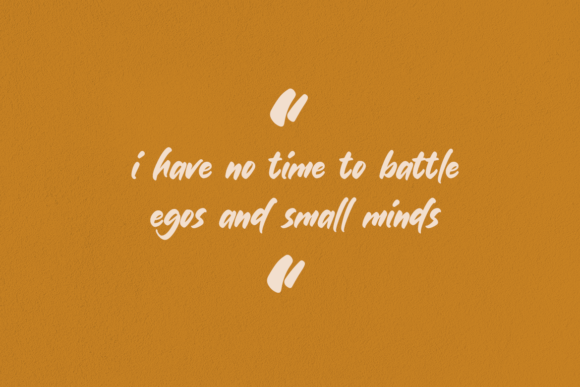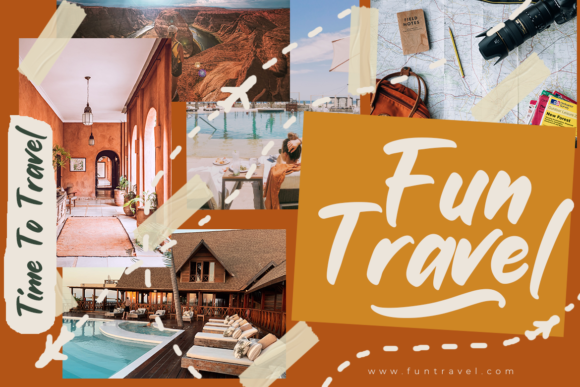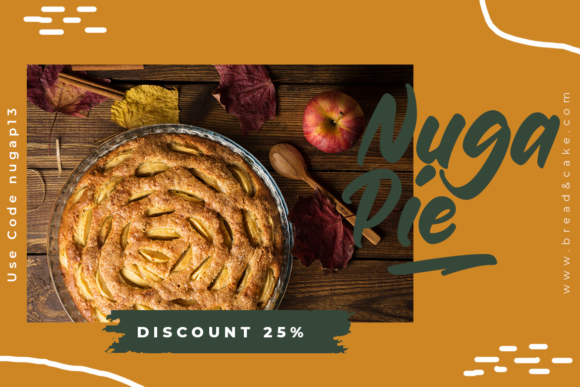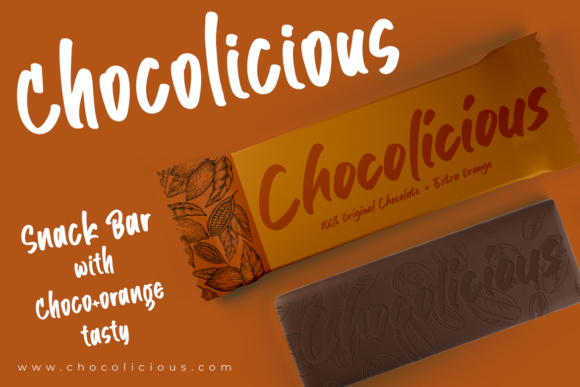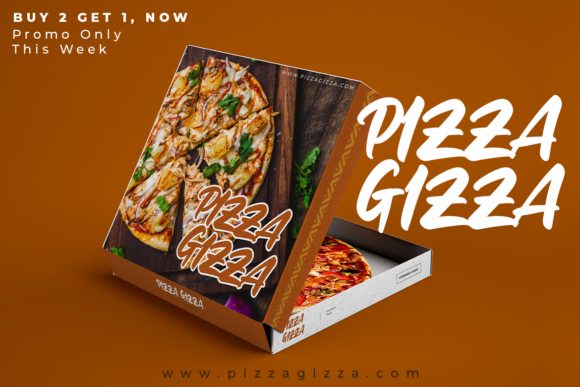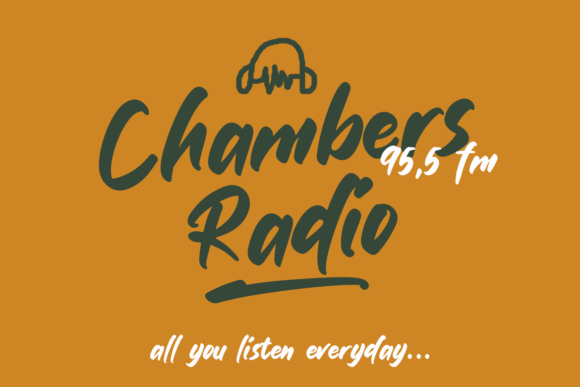
Unlocking the Magic of Gold Girls Font
Have you ever sat at your desk, staring blankly at a blank page, waiting for that spark of creativity to strike? We’ve all been there. And then, it happens – a font catches your eye, and suddenly, the ideas start flowing. For designers and writers alike, the perfect font can be the difference between a mediocre project and a masterpiece. Enter the Gold Girls Font, a stunning handwritten font that’s about to change the game.
With its modern and elegant look, Gold Girls Font is the perfect addition to any design project. Whether you’re working on a wedding invitation, a branding campaign, or a simple blog post, this font will bring your ideas to life. Its unique, flowing script makes it a valuable tool for designers looking to add a touch of sophistication and personality to their work.
Gold Girls Font Key Features
- Font Family: Gold Girls Font is a unique, hand-drawn font designed to evoke the elegance and sophistication of the 1980s.
- Unique Characteristics: The font features intricate, hand-drawn details and ornate flourishes, giving it a distinctive and eye-catching appearance.
- Script and Stylistic Sets: The font includes a range of script and stylistic sets, allowing designers to create a variety of effects and moods.
Designer Review: Gold Girls Font
When I first saw the Gold Girls Font, I was immediately drawn to its elegant, vintage vibe ✨. The font’s distressed texture and ornate details give it a unique, high-end feel that’s perfect for luxury brands, feminine designs, and nostalgic projects.
One of the things I love about Gold Girls Font is its versatility ✨. It comes in a range of weights, from light to bold, which makes it easy to use in various design contexts. I’ve used it for titles, headings, and even body text, and it always looks great ✨.
While Gold Girls Font is a great choice for many projects, there are a few limitations to keep in mind ⚠️:
- It may not be the best choice for digital displays or screens, as the distressed texture can sometimes appear fuzzy or distorted.
- Some characters, like the letter ‘g’, can be quite ornate and may not be easily readable in smaller font sizes.
- It’s not a highly legible font, so it’s best used for titles and headings rather than body text.
Overall, I’m a big fan of Gold Girls Font ✨. While it may have some limitations, its unique style and versatility make it a great addition to any designer’s toolkit. I’ve used it on several projects, and it always adds a touch of elegance and sophistication. Just be sure to use it judiciously, and you’ll be golden! 😊
Getting the Most Out of the Gold Girls Font
For the best results, use the Gold Girls Font in bold or italic styles to add emphasis to your text. You can also pair it with other fonts to create a unique and eye-catching design. Experiment with different font sizes and colors to find the perfect balance for your project.
The Gold Girls Font is perfect for:
– Creating eye-catching titles and headings
– Adding a touch of elegance to wedding invitations and party decorations
– Designing memorable logos and branding materials
– Adding a vintage touch to digital and print projects
Pacifico is a beautiful, elegant font that is perfect for designs that require a touch of sophistication and luxury. It is a great alternative to Gold Girls Font for projects such as wedding invitations, luxury branding, and high-end advertising. Pacifico is a more modern and sleek font compared to Gold Girls Font, which makes it a great choice for designers who want a more contemporary look.